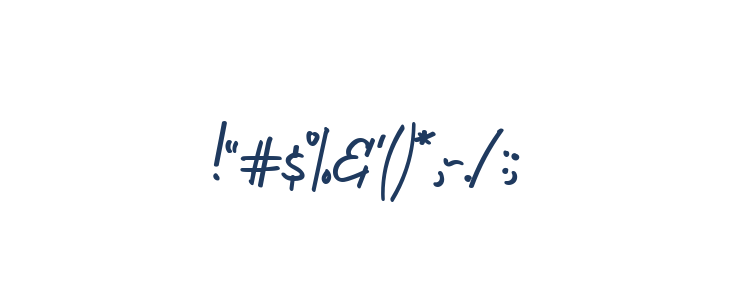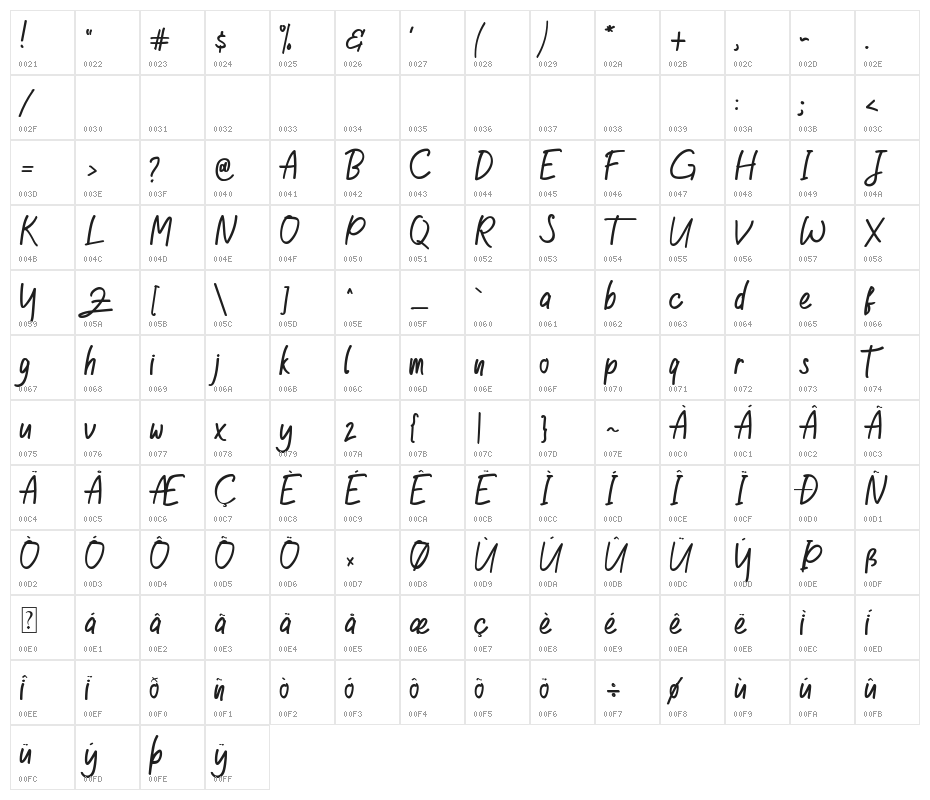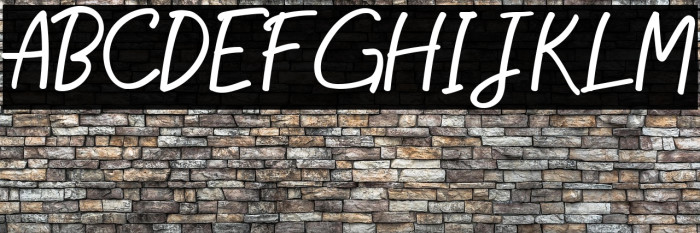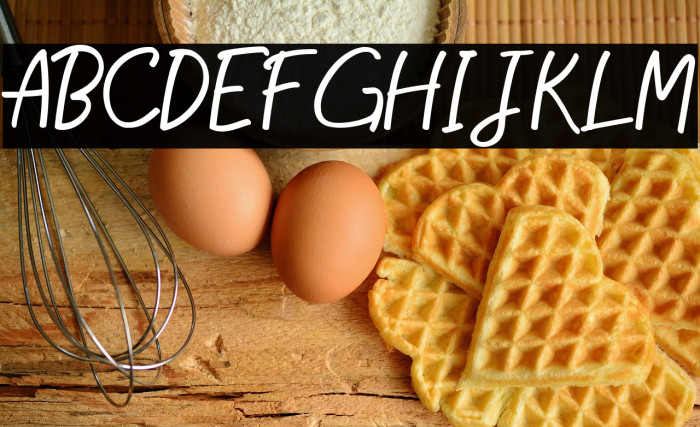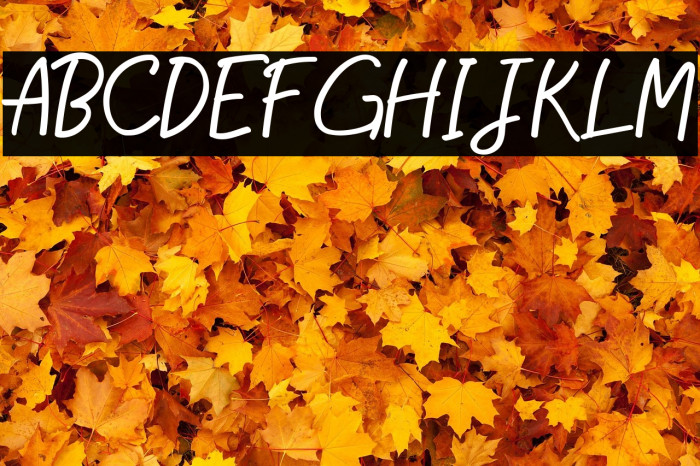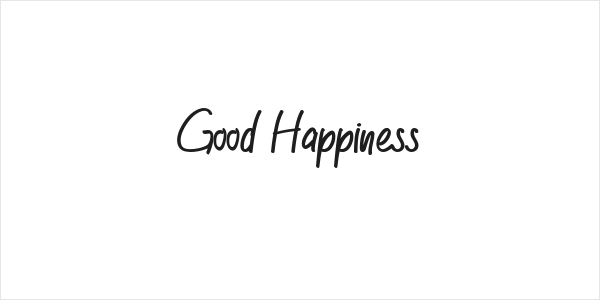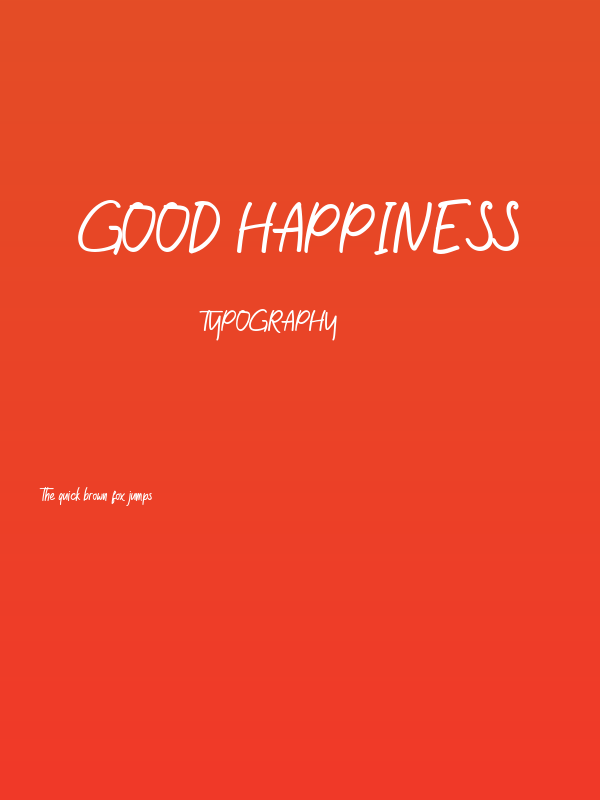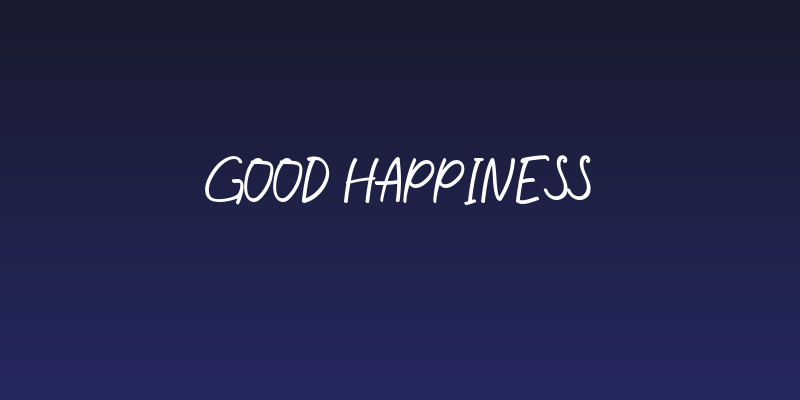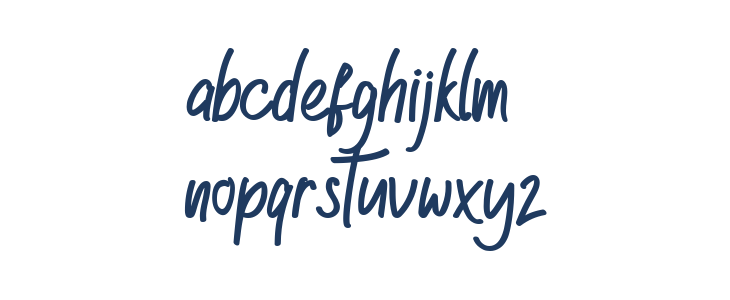
Good Happiness Font
Good Happiness Description
This font exudes a lively and casual handwritten style, characterized by its fluid and dynamic strokes. The letters are slightly slanted, giving it a sense of motion and energy. The uppercase and lowercase letters maintain a consistent flow, with rounded edges and varying stroke widths that add to its informal charm. The numerals and special characters are crafted with the same playful touch, ensuring a cohesive look across all characters. This font is perfect for projects that require a personal and approachable feel, such as greeting cards, invitations, or playful branding.